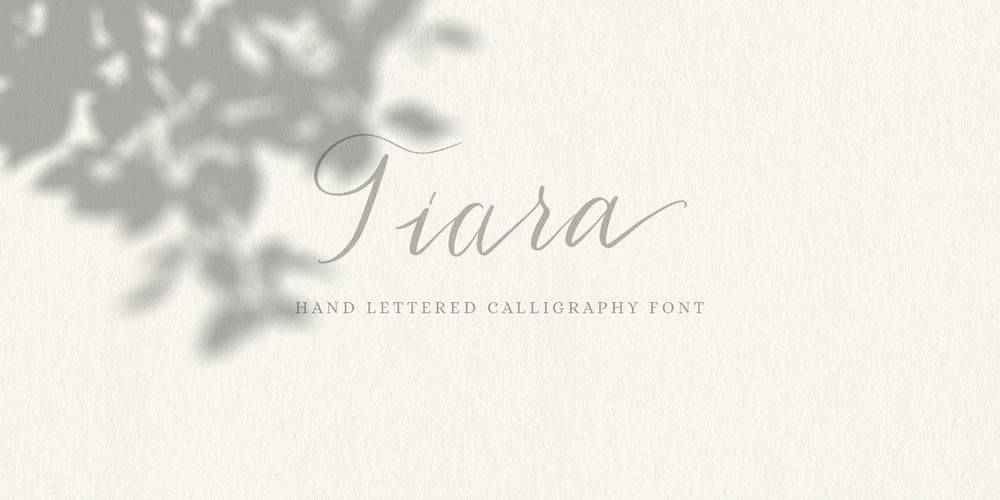
Tiara
Tiara font
Tiara Font Family was designed by Tanya Amos and published by Tanincreate. Tiara contains 1 styles and family package options. Tiara is a lovely modern calligraphy script typeface with contemporary accents. It is great for wedding invitations, branding, headline, logotype, apparel, packaging, advertising etc. Tiara script comes in uppercase, lowercase, punctuation, symbols & numerals, stylistic set alternate, ligatures, multilingual support . All lowercase letters include beginning and/or ending swashes which gives a realistic hand-lettered style. To use the swashes, a program that supports OpenType features is needed (Adobe Photoshop CS, Adobe Illustrator CC, Adobe Indesign, Corel Draw, ect.)